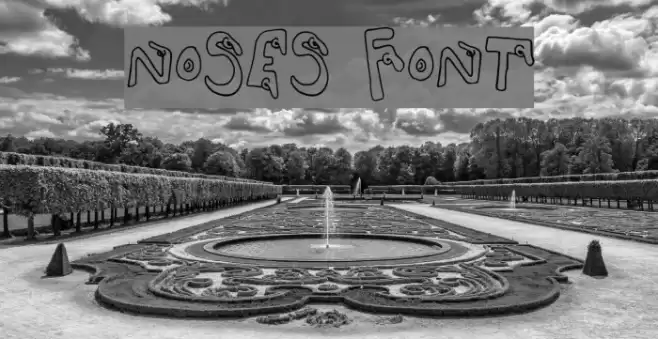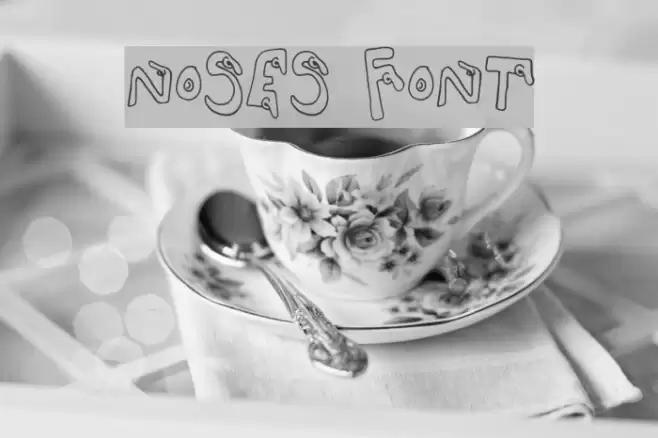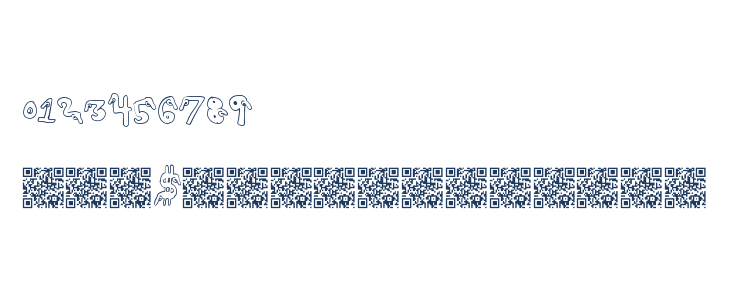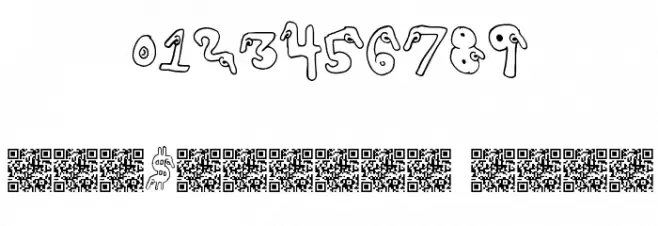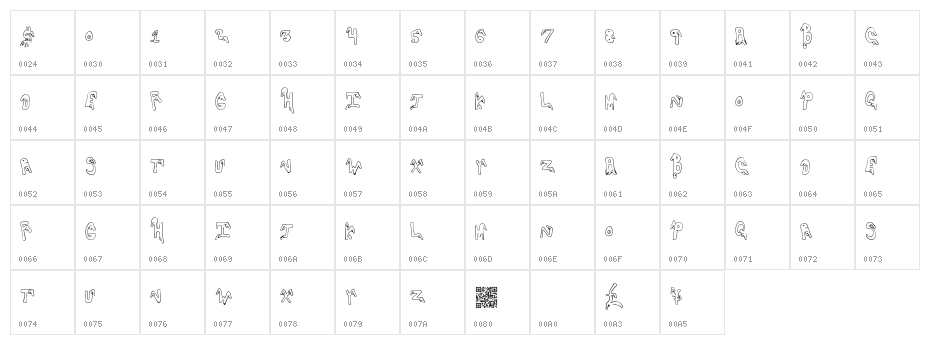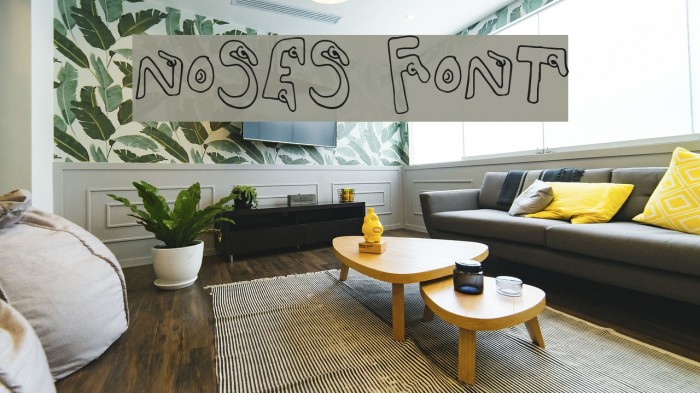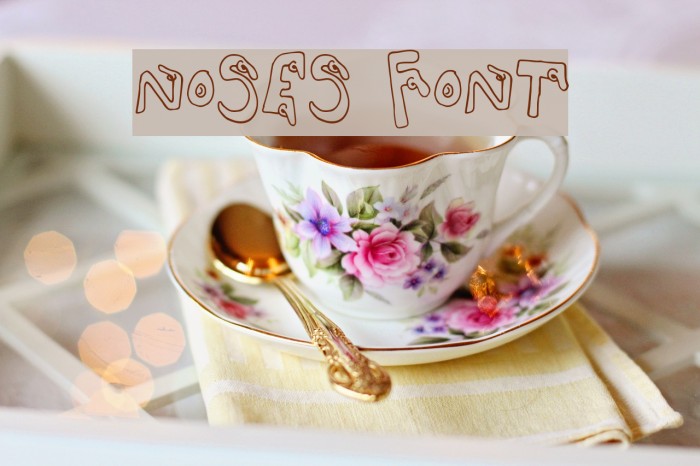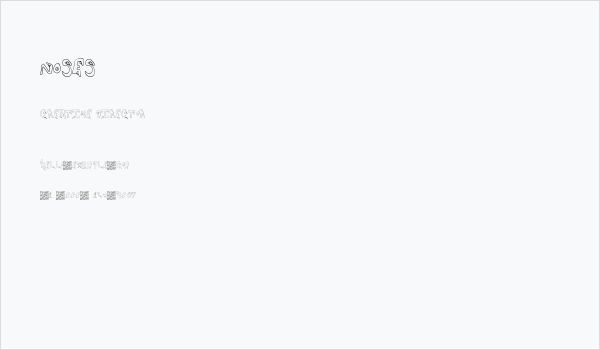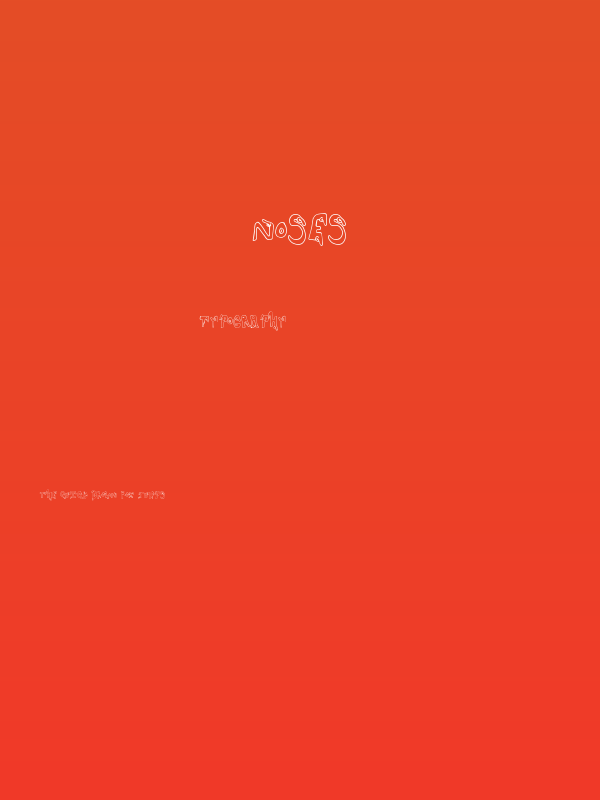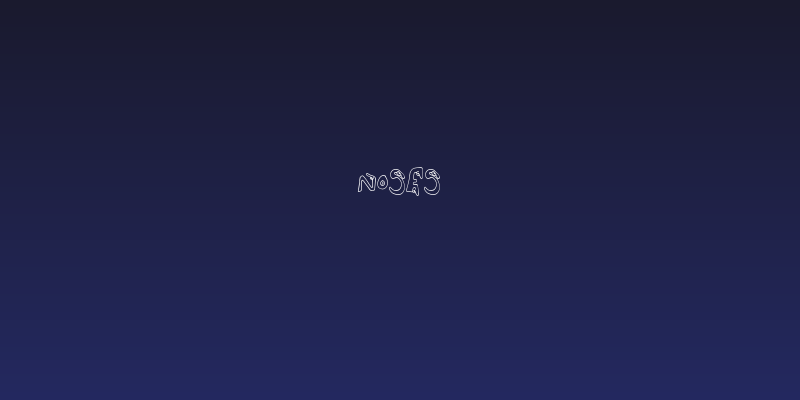
Noses Font
Noses Description
This playful and whimsical font features characters that are creatively designed to resemble noses, giving it a unique and humorous appearance. Each letter and number is crafted with exaggerated curves and angles, making it stand out with a cartoonish flair. The font maintains a consistent line weight throughout, contributing to its cohesive look. Its quirky style is perfect for projects that require a light-hearted and fun touch, such as children's books, comic strips, or playful branding. The font's distinct personality makes it ideal for capturing attention and adding a sense of humor to any design.
A playful, nose-themed font with a whimsical and humorous design from Cartoon fonts.
- Proposed Projects: Children's books, comic strips, playful branding, humorous posters.
- Overall Style: Whimsical, Playful